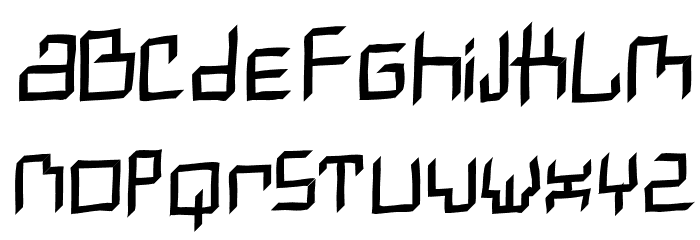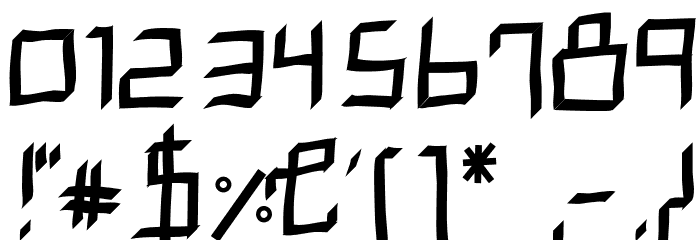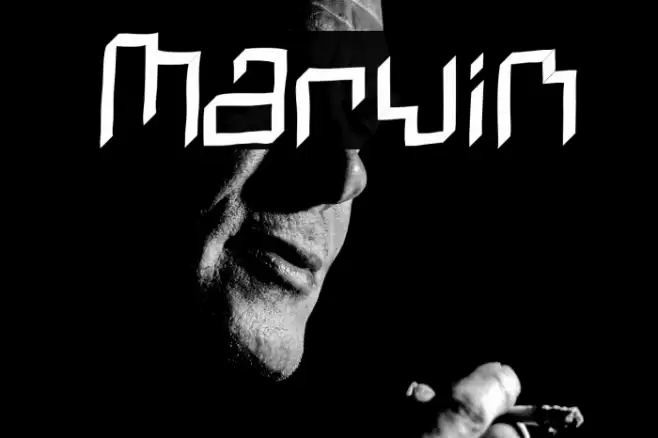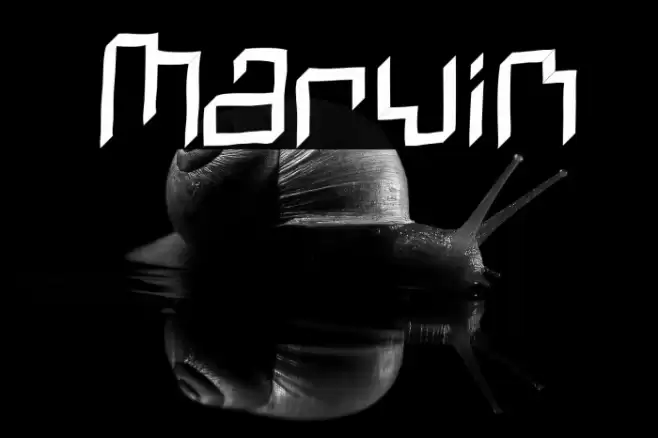
Marvin Font
This font features a bold, angular design with a futuristic and edgy appearance. The characters are sharply defined with a geometric style, giving them a unique and striking look. The uppercase and lowercase letters maintain a consistent angular theme, while the numbers and special characters follow suit with similar sharp edges and bold strokes. The overall design is modern and dynamic, making it suitable for projects that require a strong visual impact.
A bold, angular font with a futuristic and edgy design.
- Proposed Projects: Ideal for sci-fi themed designs, video game titles, posters, and branding that requires a modern and bold statement.